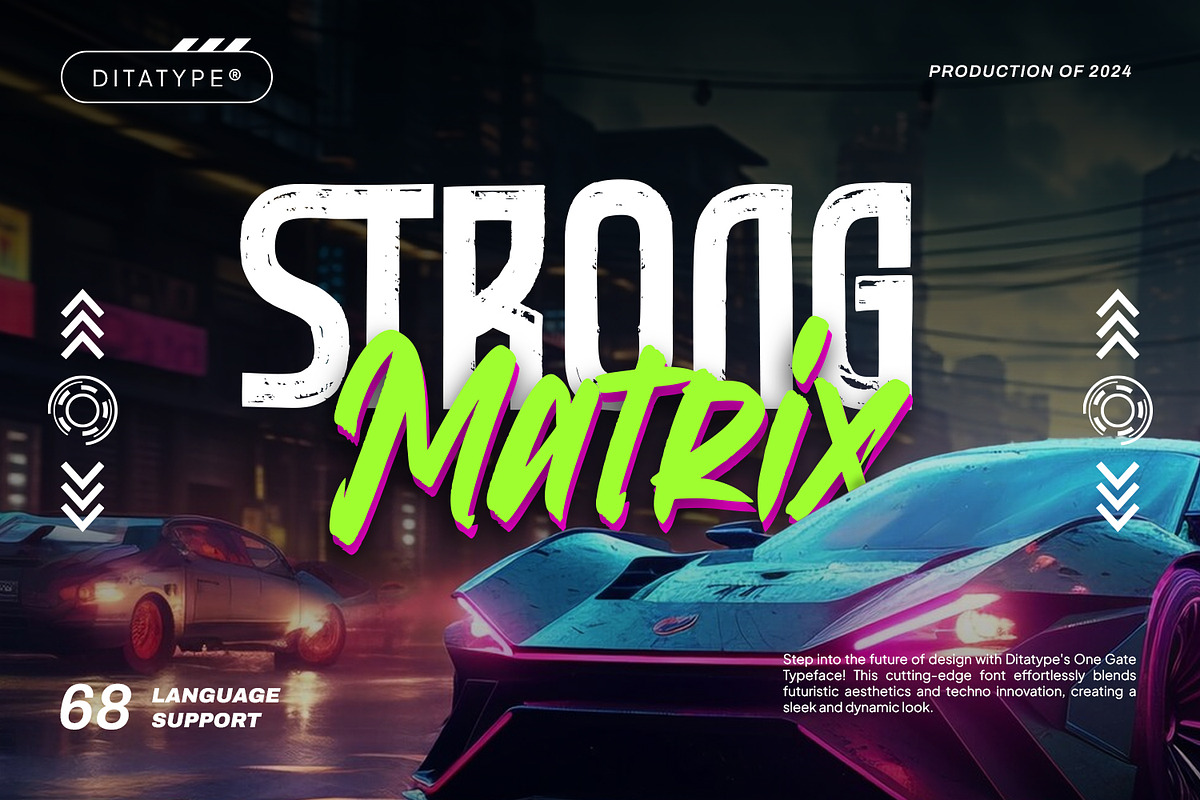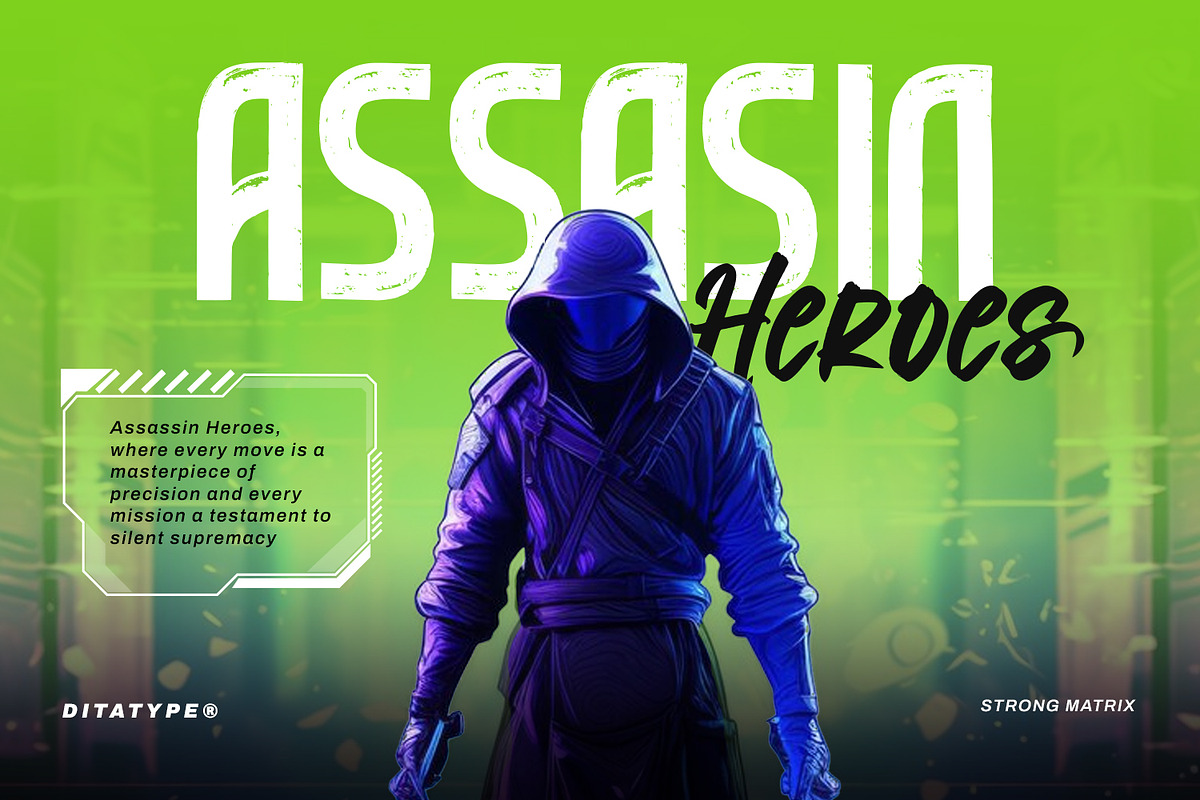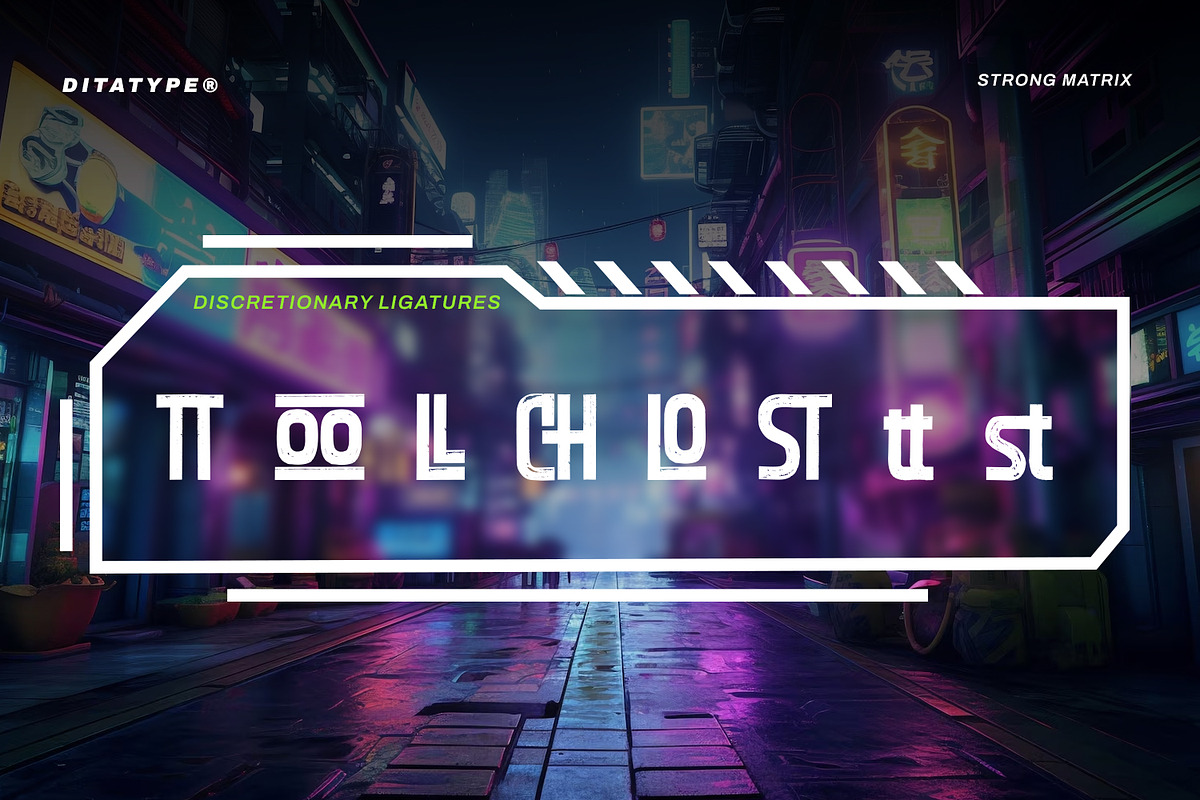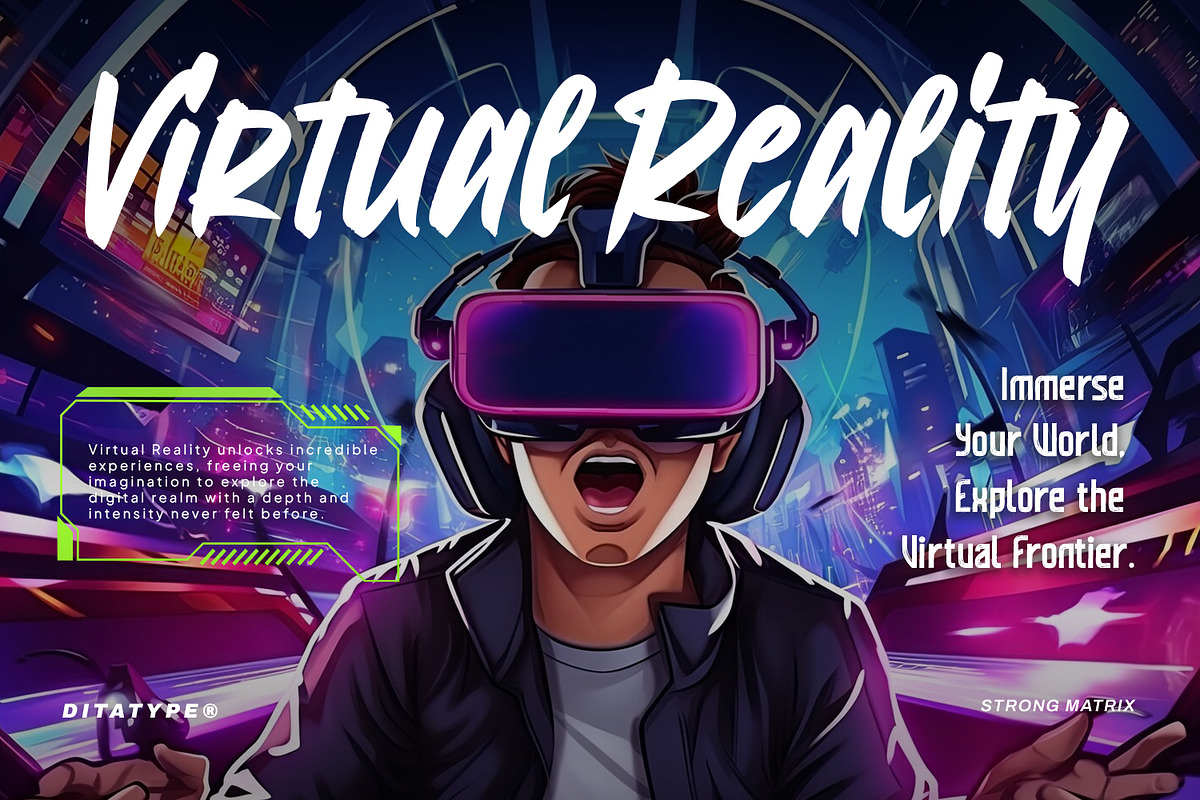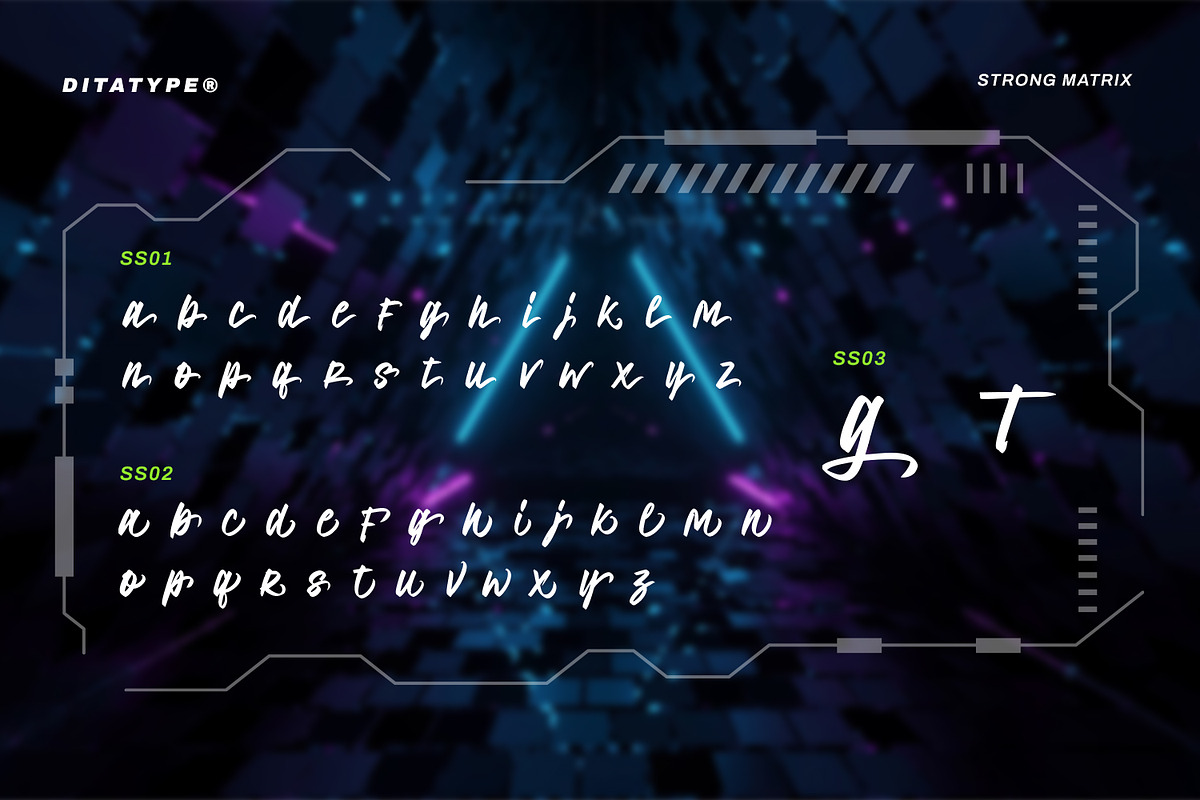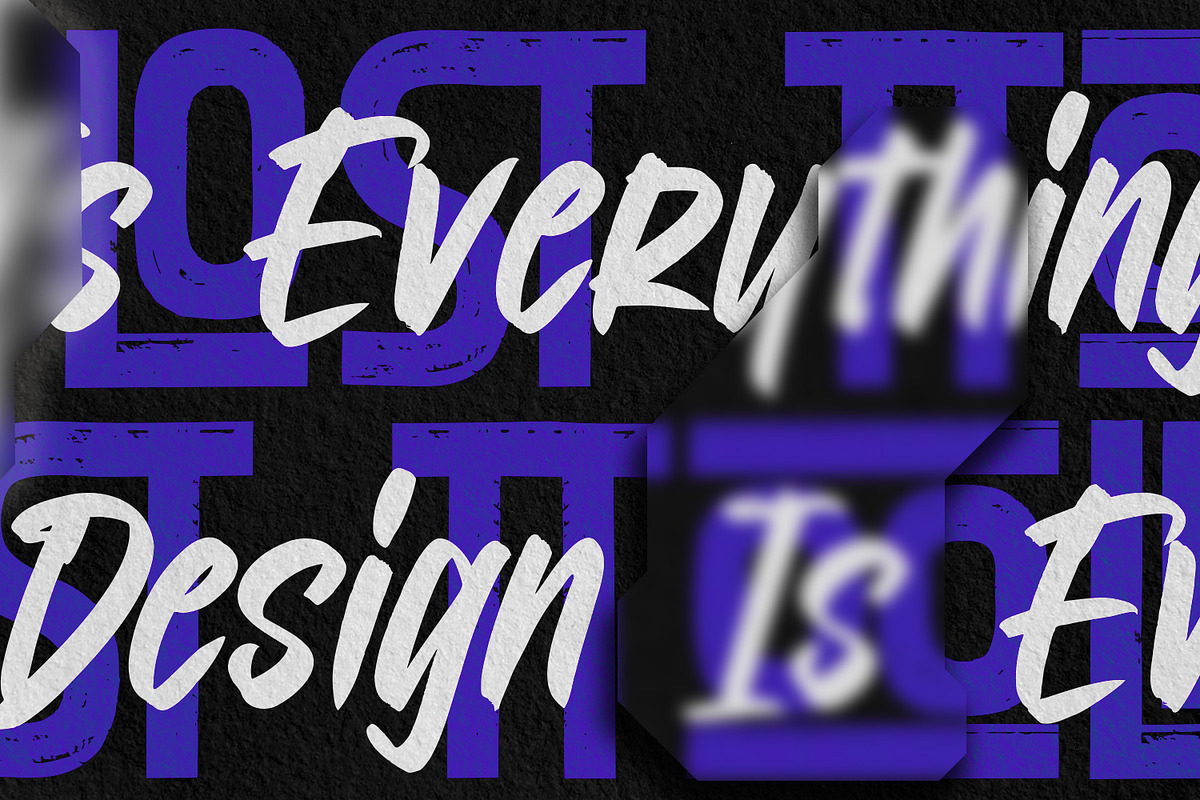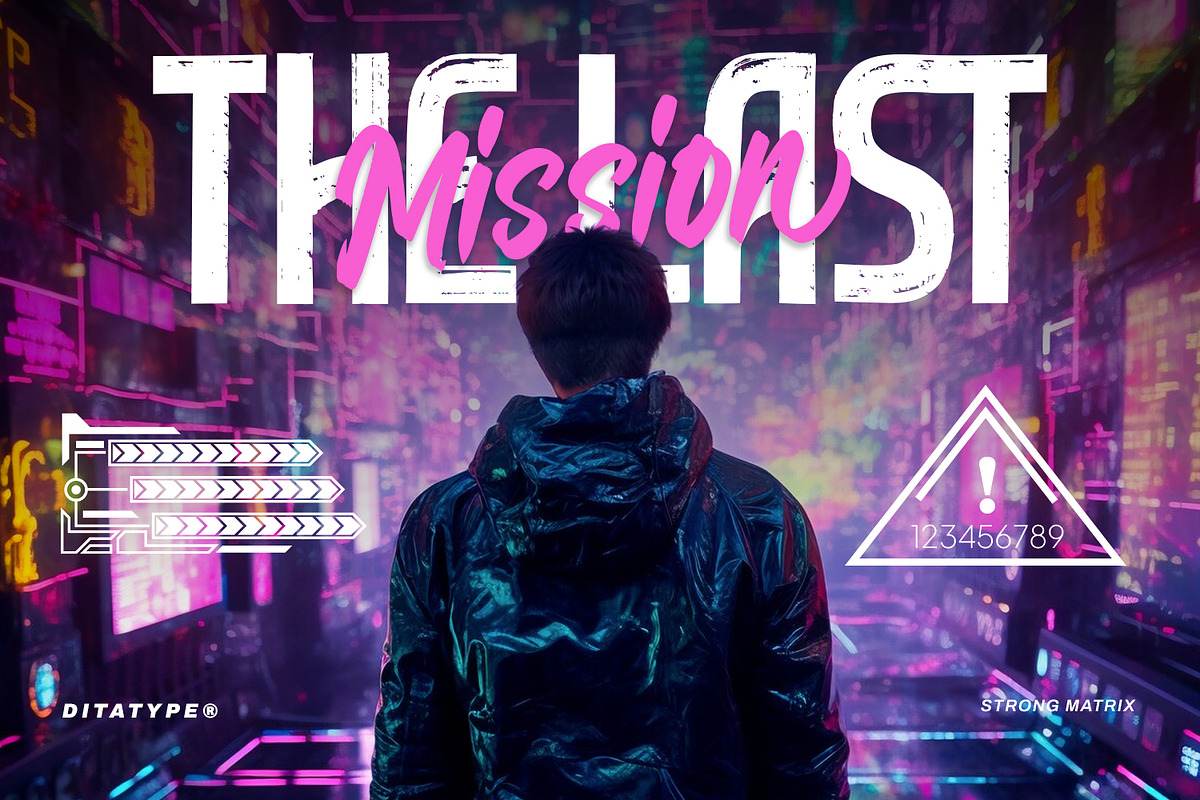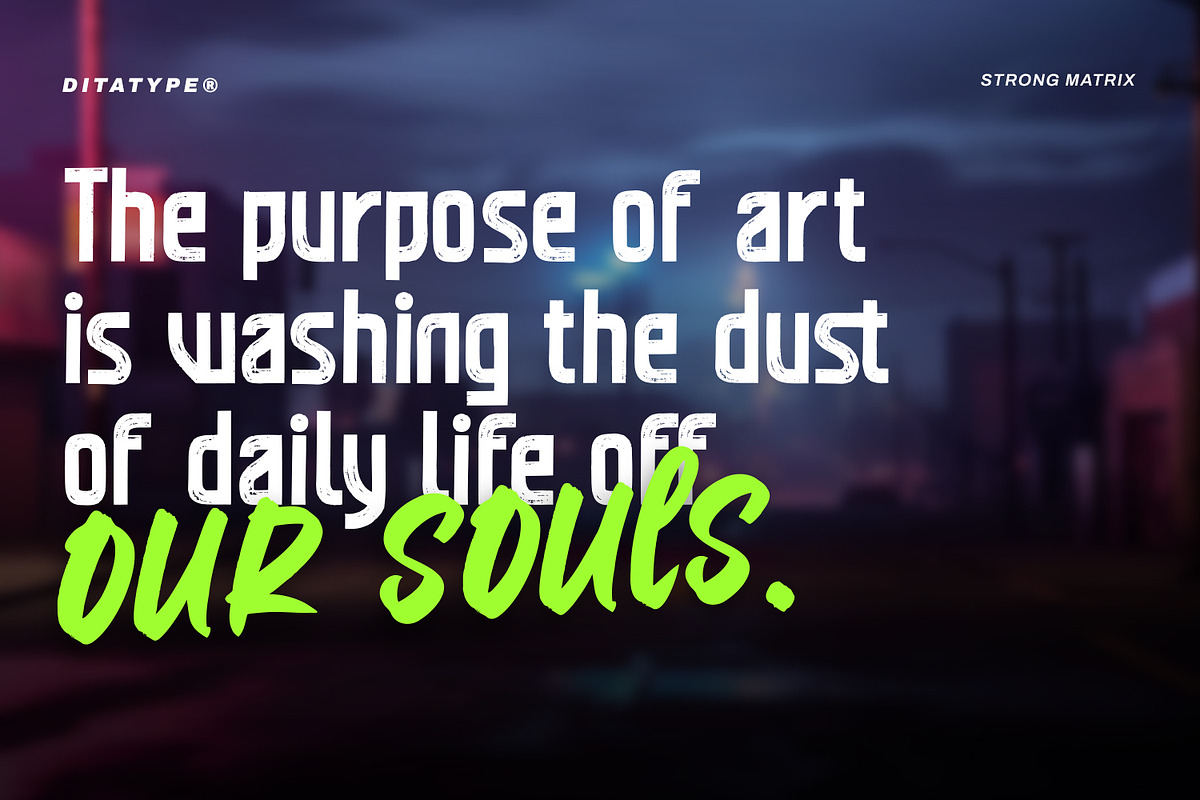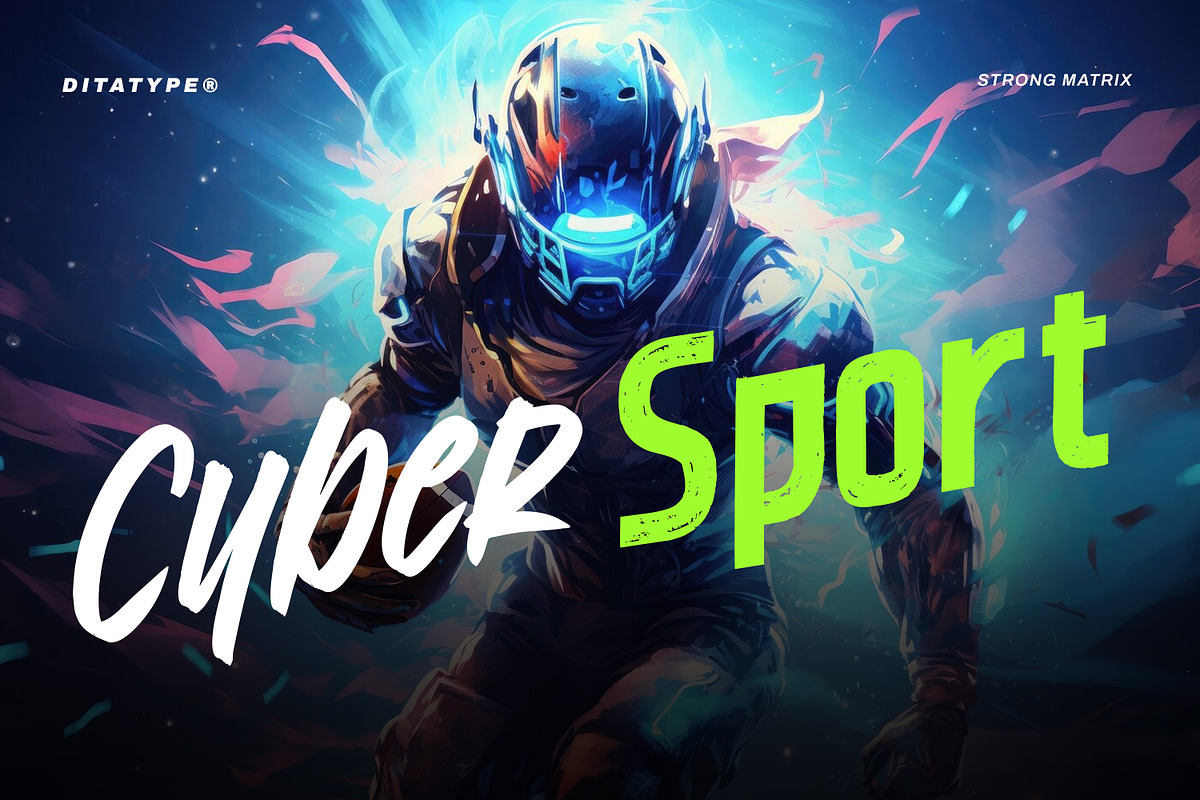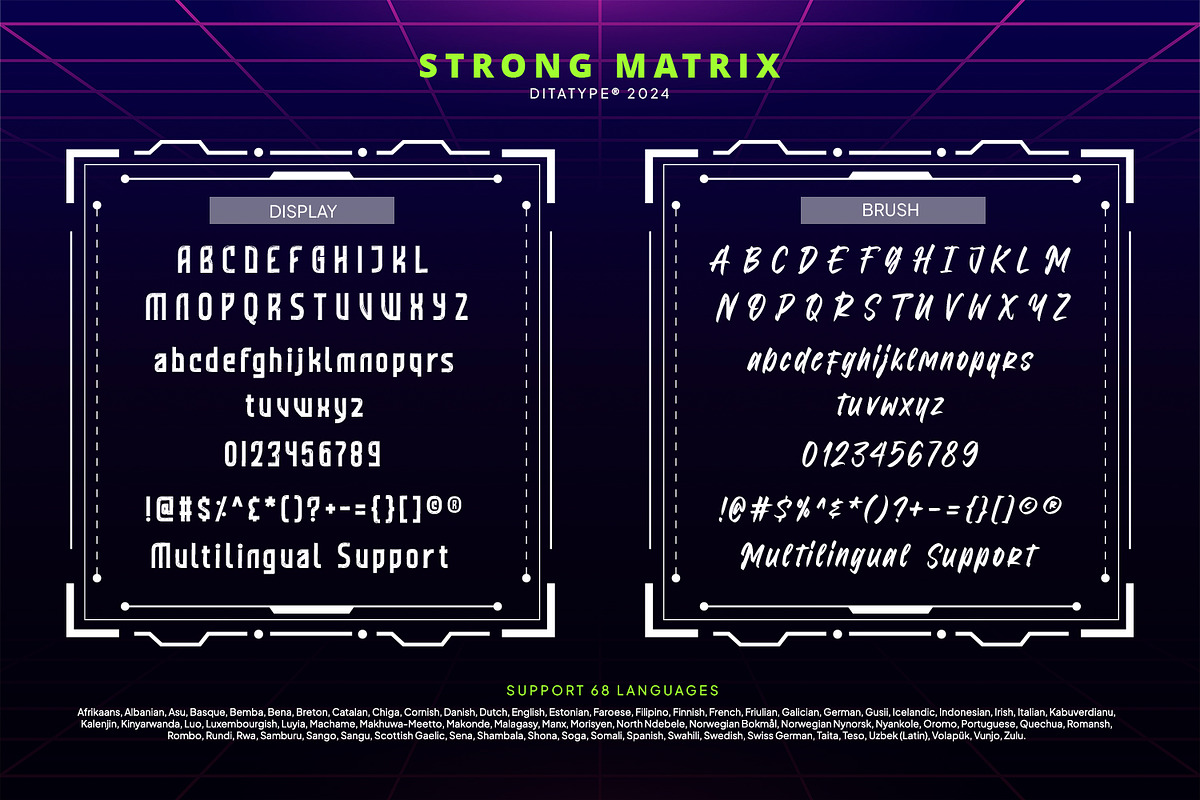
Strong Matrix
Strong Matrix is a powerful duo font that combines the best of both worlds: the boldness of a display font and the organic charm of a brush font. This dynamic pairing offers designers a versatile toolkit to create stunning designs with character and impact.
The display font in the Strong Matrix duo boasts a commanding presence, with a fairly large weight that demands attention. Each letter is meticulously crafted with detailed brushwork, lending a sense of texture and depth to the typeface. Despite its boldness, the display font maintains a clean outline, ensuring readability and clarity.
Complementing the display font is the brush font, designed with the same letter proportions and low contrast for a cohesive aesthetic. This brush font adds a touch of warmth and authenticity to designs, with its handcrafted feel and organic textures. Together, the Strong Matrix duo font creates a harmonious balance between strength and style.
- Stylistic Sets
Strong Matrix fits in headlines, logos, posters, flyers, branding materials, greeting cards, print media, editorial layouts, and many more designs. Find out more ways to use this font by taking a look at the font preview.